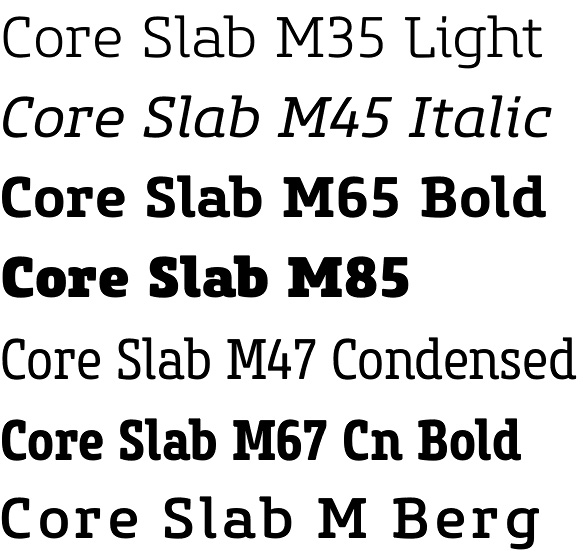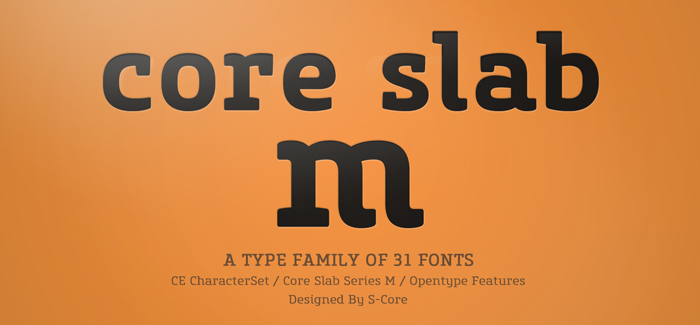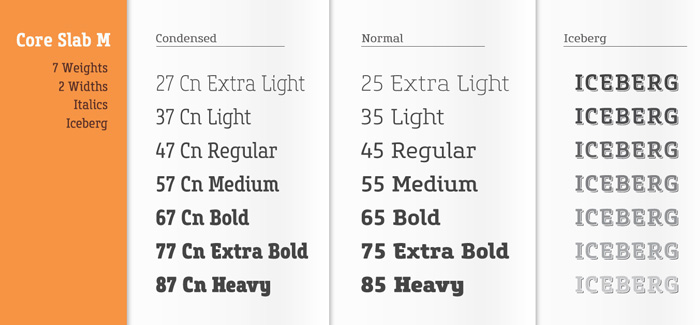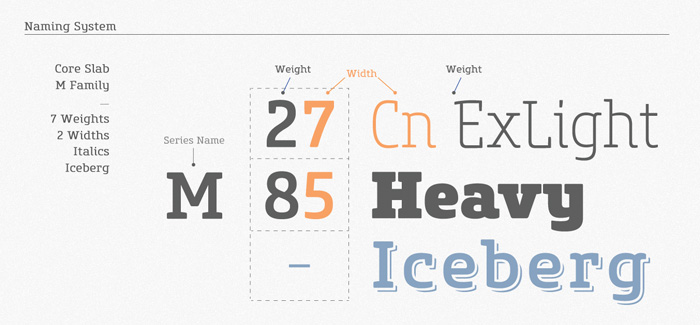
Core Slab M font
Core Slab M font is the serif companion to Core Sans M (Text family of the month. May, 2013). This font family has open and square letter shapes, and overall rounded finishes and serifs provide a soft and friendly appearance but also it is strong in headline. Simple and modern shapes with a tall x-height make the text legible and the spaces between individual letter forms are precisely adjusted to create the perfect typesetting.
Core Slab M Family consists of 2 widths (Condensed, Normal), 7 weights ExtraLight, Light, Regular, Medium, Bold, ExtraBold, Heavy), and Italics for each format. Combination fonts such as Core Slab M Ice, Berg and Iceberg are also available. Each font includes support for Superiors and Inferiors, Fractions, Tabular numbers, Arrows, Box drawings, Geometric shapes, Block elements, Mathematical operators, Miscellaneous symbols and Opentype Features such as Proportional Figures, Tabular Figures, Numerators, Denominators, Superscript, Scientific Inferiors, Subscript, Fractions and Standard Ligatures. We highly recommend it for use in books, web pages, screen displays, and so on.
Designers: Hyun-Seung Lee, Dae-Hoon Hahm, Min-Joo Ham